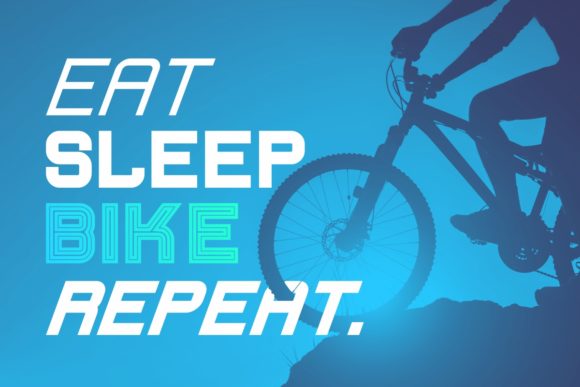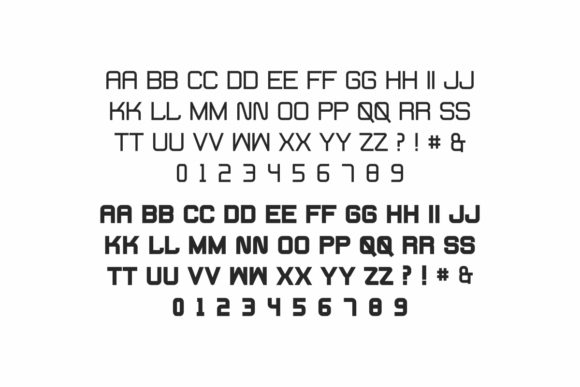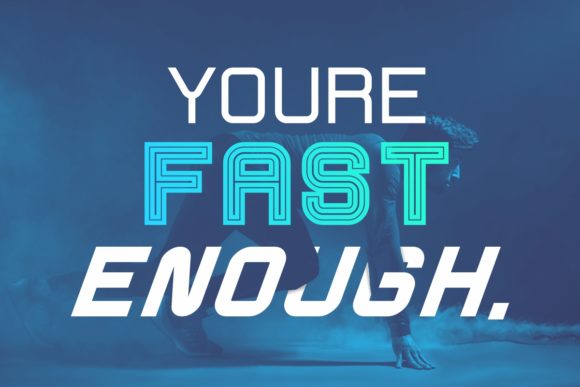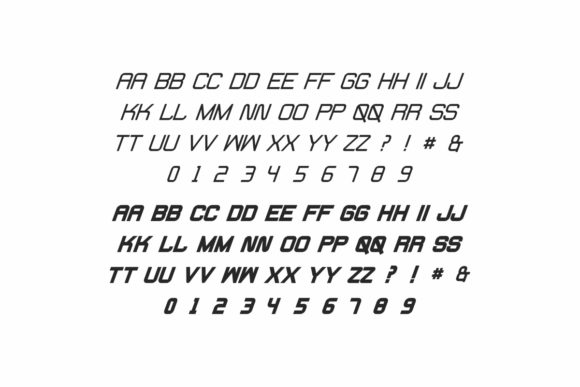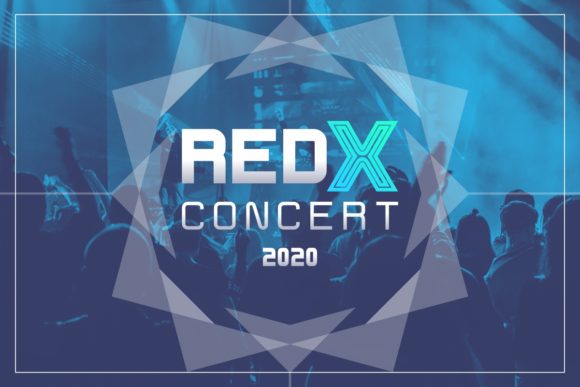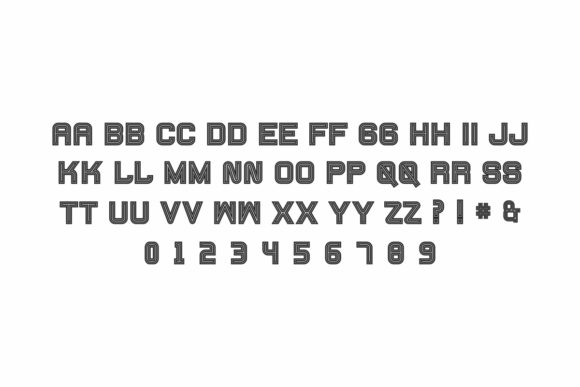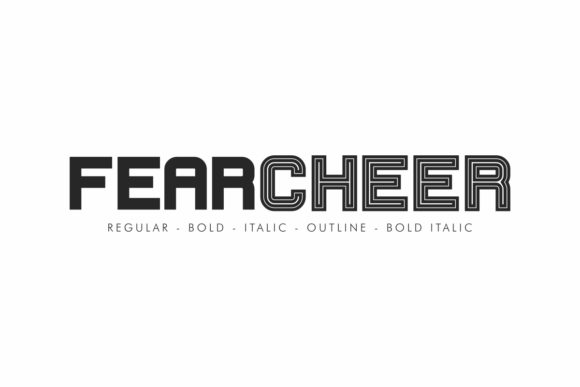
Fearcheer Font: The Ultimate Display Font for Bold and Creative Ideas
Are you tired of using the same old fonts for your creative projects? Look no further than Fearcheer Font, a bold and chunky lettered display font that’s sure to take your designs to the next level. Masterfully designed to become a true favorite among designers and crafters, Fearcheer Font is the perfect choice for anyone looking to add a touch of personality and style to their work.
What Makes Fearcheer Font So Special?
Fearcheer Font is a one-of-a-kind display font that’s designed to make a statement. Its bold and chunky lettering makes it perfect for headlines, titles, and any other text that needs to stand out. But what really sets Fearcheer Font apart is its versatility. Whether you’re working on a graphic design project, a crafting project, or even a website, Fearcheer Font is the perfect choice.
Key Features of Fearcheer Font
- Bold and Chunky Lettering: Fearcheer Font features bold and chunky lettering that’s perfect for making a statement.
- Highly Versatile: Fearcheer Font can be used for a wide range of projects, from graphic design to crafting and web design.
- Easily Readable: Despite its bold and chunky design, Fearcheer Font is still easily readable, even at smaller sizes.
- Unique and Eye-Catching: Fearcheer Font is a truly unique and eye-catching font that’s sure to grab attention.
How to Use Fearcheer Font in Your Projects
Fearcheer Font is incredibly easy to use and can be incorporated into a wide range of projects. Here are just a few ideas to get you started:
- Graphic Design Projects: Use Fearcheer Font to add a bold and eye-catching touch to your graphic design projects, such as brochures, posters, and flyers.
- Crafting Projects: Fearcheer Font is perfect for crafting projects, such as handmade cards, scrapbooking, and DIY signs.
- Web Design Projects: Use Fearcheer Font to add a bold and chunky touch to your website, including headlines, titles, and buttons.
Why Designers and Crafters Love Fearcheer Font
Fearcheer Font has quickly become a favorite among designers and crafters, and for good reason. Here are just a few reasons why:
- Unique and Creative: Fearcheer Font is a truly unique and creative font that’s sure to inspire your next project.
- Easily Customizable: Fearcheer Font is easily customizable, allowing you to adjust the font to fit your specific needs.
- High-Quality Design: Fearcheer Font is designed to the highest standards, ensuring a high-quality finish that’s sure to impress.
In conclusion, Fearcheer Font is a bold and chunky lettered display font that’s perfect for designers and crafters looking to add a touch of personality and style to their work. With its highly versatile design, easily readable lettering, and unique and eye-catching style, Fearcheer Font is sure to become a true favorite among creatives. So why wait? Download Fearcheer Font today and start bringing your creative ideas to life!